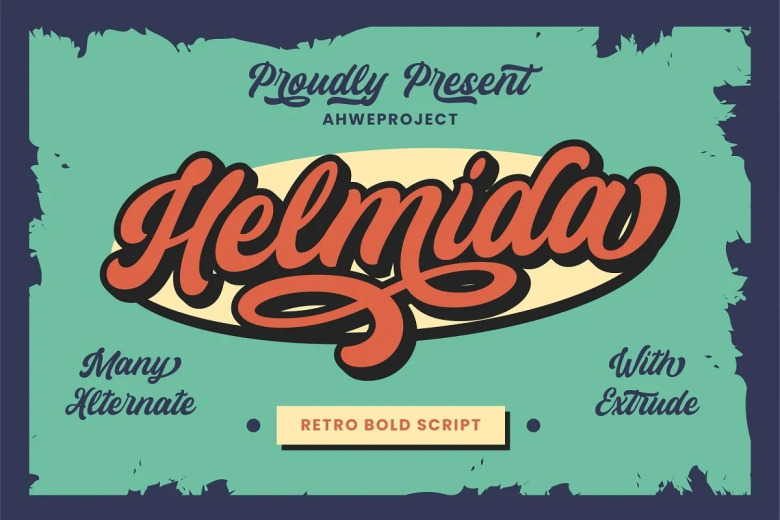
Helmida Font
Helmida is a unique and elegant retro script. Choose to fall in love with its beautiful style and use it for creating splendid designs. PUA Encoded: This font is PUA encoded, so you can easily access all swashes and alternates, full set available here.
Helmida Bold Script Font